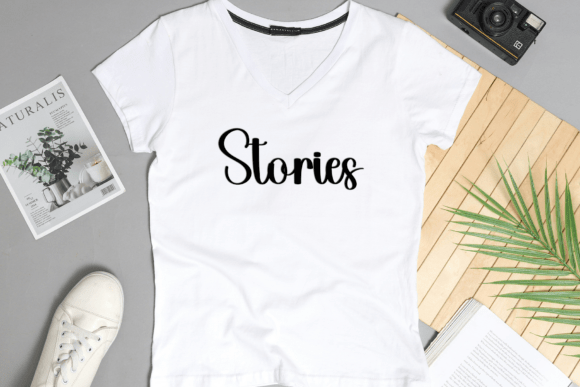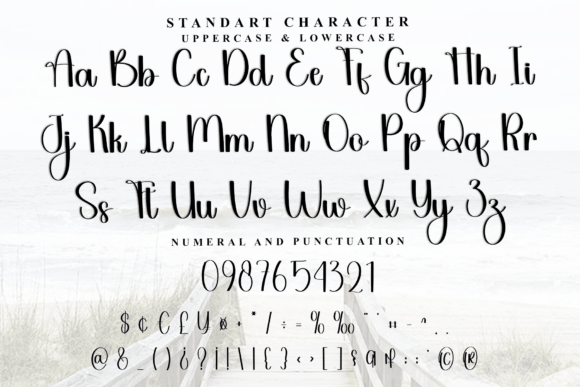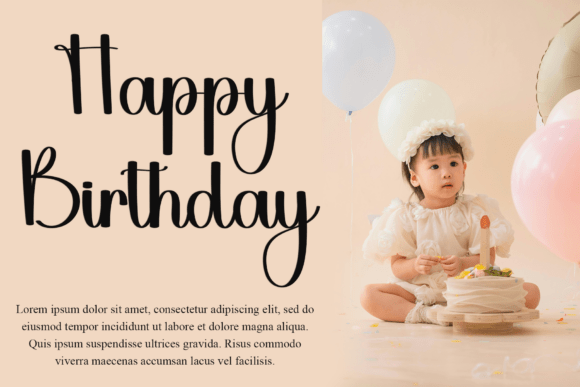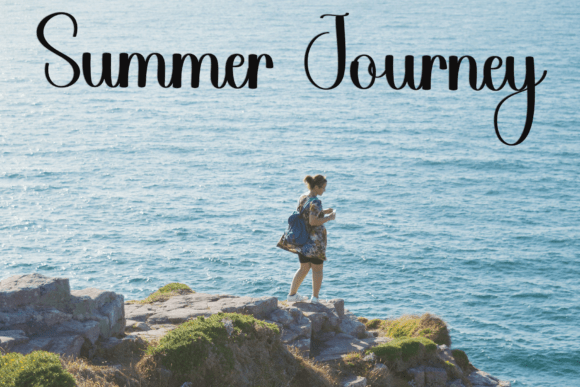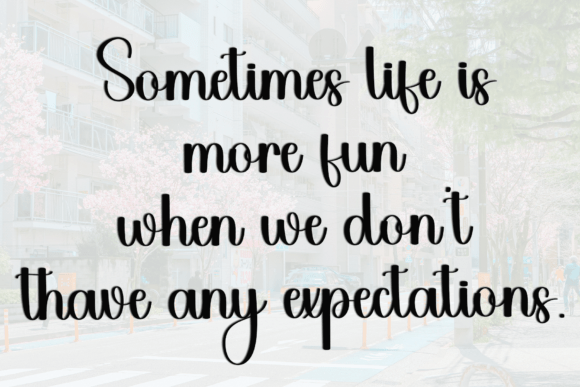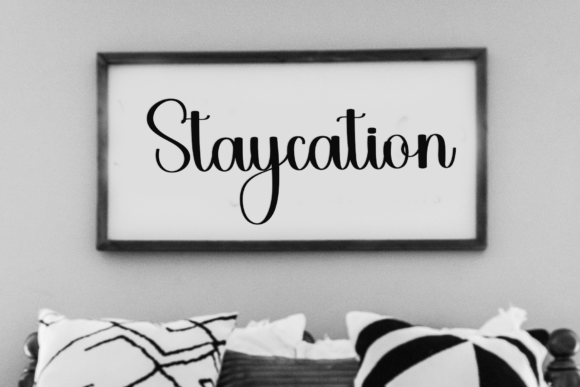
Betterment Font: Add a Touch of Holiday Magic to Your Designs
The holiday season is upon us, and what better way to get into the spirit than with a festive and merry typeface? Look no further than the Betterment Font, a decorative font that captures the essence of the holiday season with its whimsical flair and enchanting charm. In this article, we’ll dive into the world of Betterment Font and explore how it can elevate your designs, from greeting cards to holiday-themed projects.
Betterment Font is a unique and captivating typeface that embodies the joy and magic of the holiday season. Its decorative elements and whimsical flair add a touch of enchantment to your designs, making it perfect for a variety of applications. Whether you’re a designer, crafter, or simply someone who loves the holiday season, Betterment Font is sure to bring a smile to your face.
Betterment Font is specifically designed with the holiday season in mind. Its festive and merry vibe makes it ideal for a range of projects, including:
• Greeting cards: Add a personal touch to your holiday cards with Betterment Font’s whimsical and decorative elements.
• Gift tags: Make your gifts stand out with custom gift tags featuring Betterment Font’s enchanting charm.
• Holiday-themed projects: From invitations to party decorations, Betterment Font is the perfect choice for any holiday-themed project.
• Access a wide range of decorative elements, including swashes, flourishes, and ornaments.
• Create custom ligatures and glyphs to add a personal touch to your designs.
• Experiment with different font combinations to create unique and eye-catching designs.
Bring a Cheerful and Nostalgic Ambiance to Your Words
Betterment Font is more than just a typeface – it’s an experience. Its whimsical and decorative elements evoke a sense of nostalgia and cheer, making it perfect for designers and crafters who want to create holiday designs that are both festive and memorable. With Betterment Font, you can:
• Add a touch of vintage charm to your designs.
• Create custom typography that’s both playful and elegant.
• Evoke the magic of the holiday season in your designs.
Let Your Typography Shine
Betterment Font is the perfect choice for designers and crafters who want to add a touch of holiday magic to their designs. With its decorative elements, whimsical flair, and PUA encoding, Betterment Font is the ultimate tool for creating stunning holiday typography. So why settle for ordinary typography when you can make your designs shine with the magic of Betterment Font?
In conclusion, Betterment Font is a festive and merry typeface that’s perfect for the holiday season. Its decorative elements, whimsical flair, and PUA encoding make it the ultimate choice for designers and crafters who want to add a touch of enchantment to their designs. Whether you’re creating greeting cards, gift tags, or holiday-themed projects, Betterment Font is sure to bring a cheerful and nostalgic ambiance to your words. So why wait? Get your hands on Betterment Font today and let your typography shine with the magic of the holiday season!